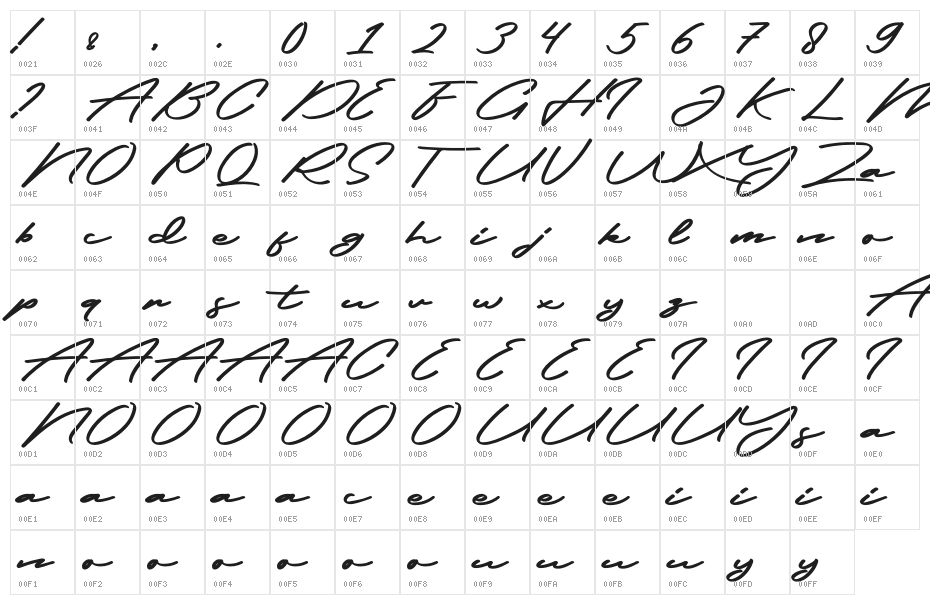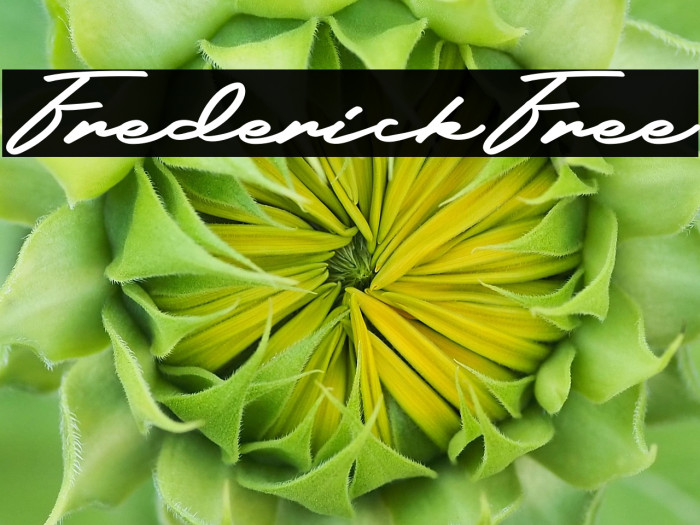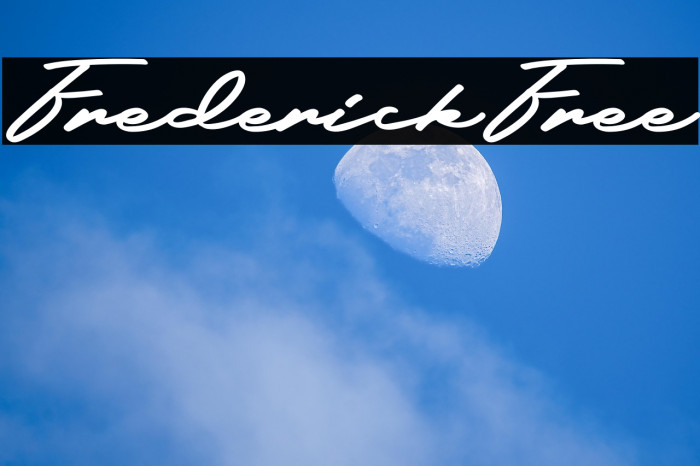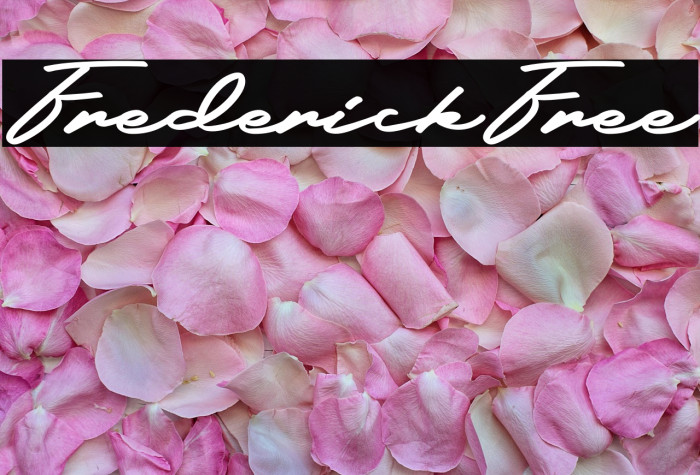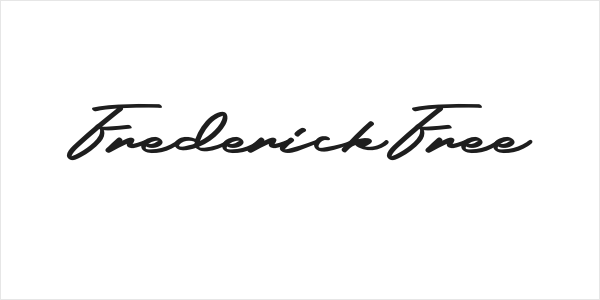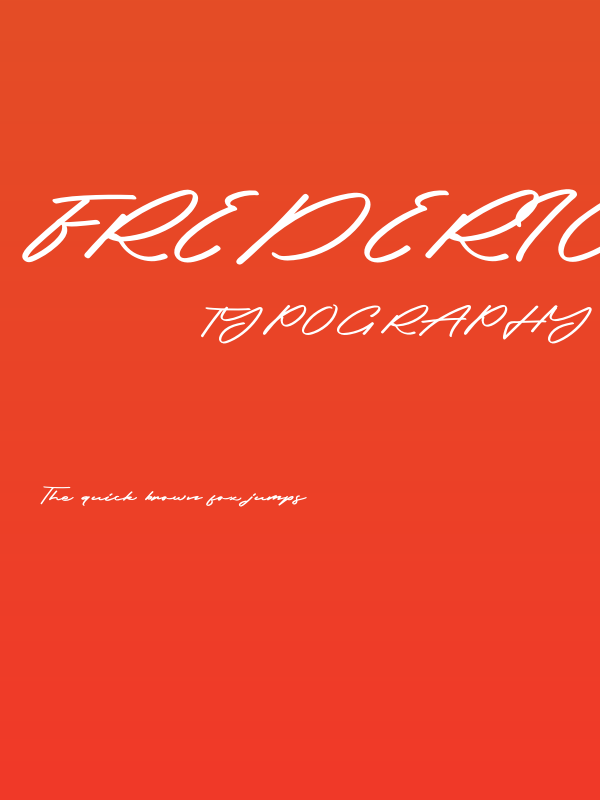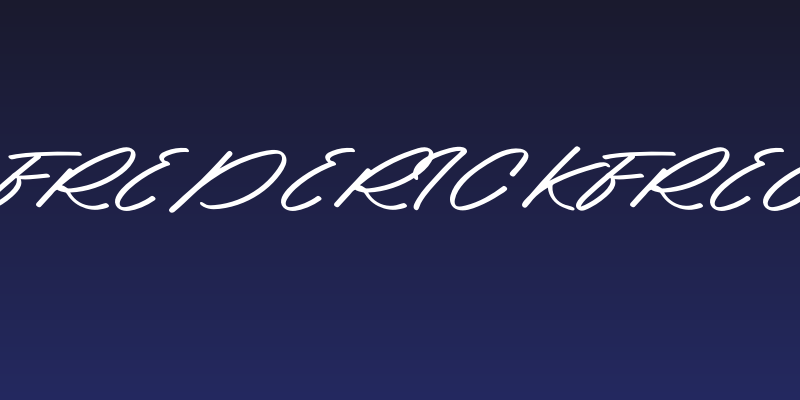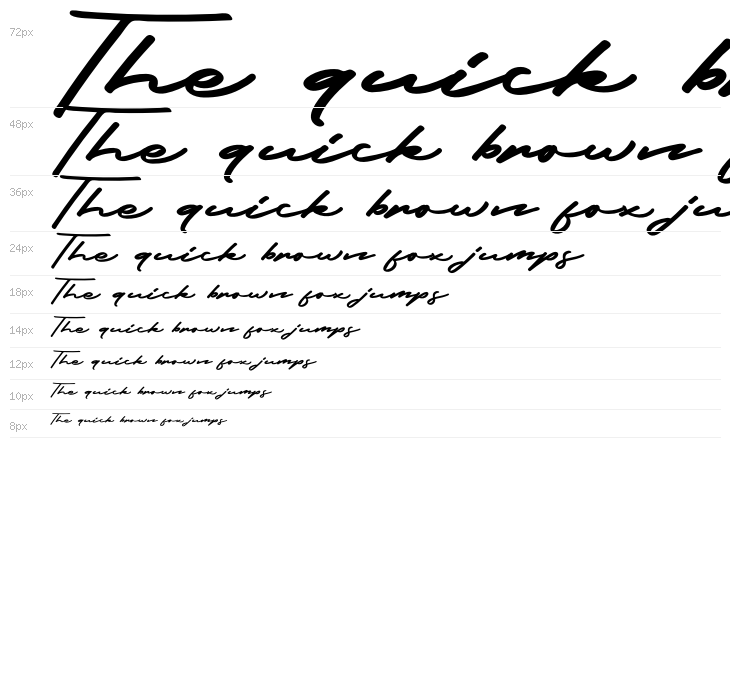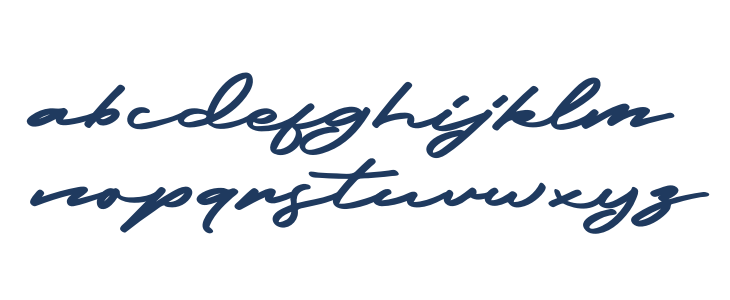
FrederickFree Font
FrederickFree Description
This font exudes a classic and elegant script style, characterized by its fluid and connected letterforms. The uppercase letters are slightly more upright and formal, while the lowercase letters exhibit a more casual and flowing appearance. The strokes are smooth and consistent, with a medium contrast between thick and thin lines, adding to its legibility and charm. The numerals are well-balanced, maintaining the script style, and the special characters are designed to complement the overall aesthetic. This font is perfect for projects that require a touch of sophistication and elegance.
| Use Case | Logos, Invitations, Personal Stationery |
| Proposed Projects | Ideal for wedding invitations, elegant branding, greeting cards, and personal stationery. |